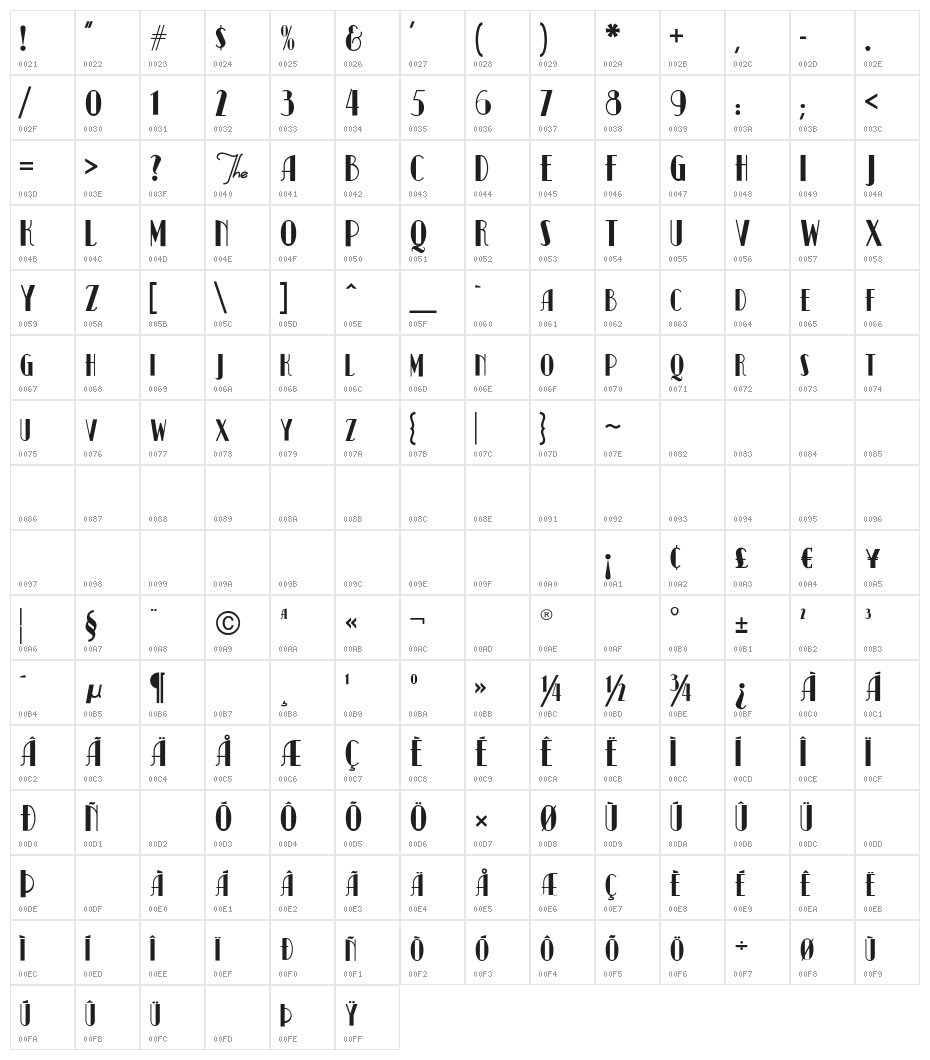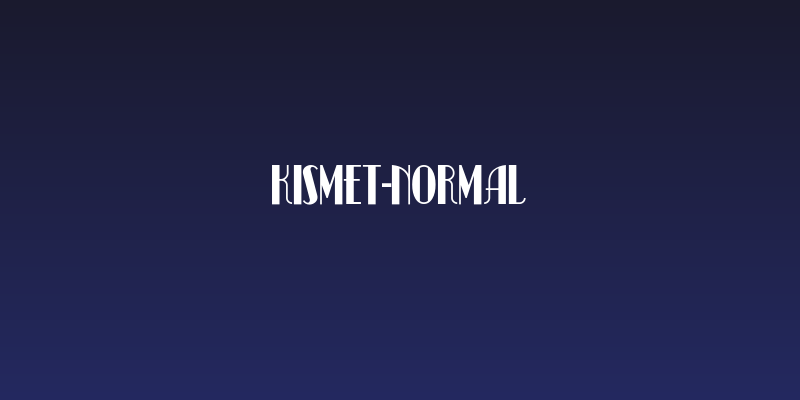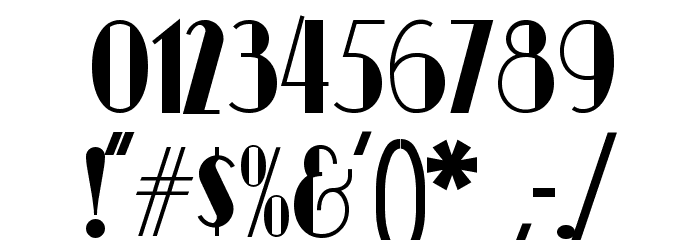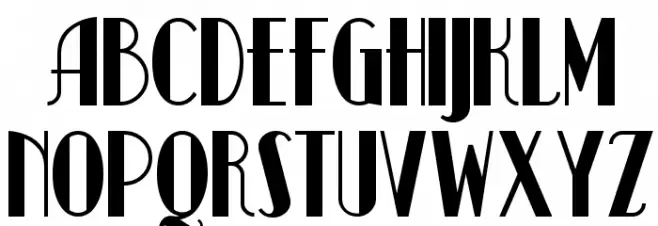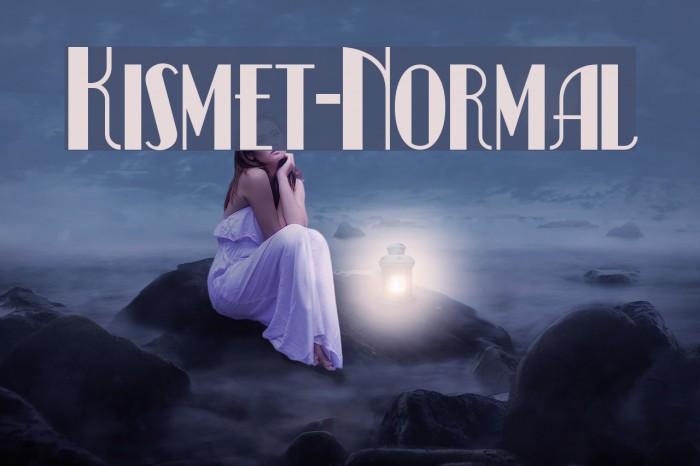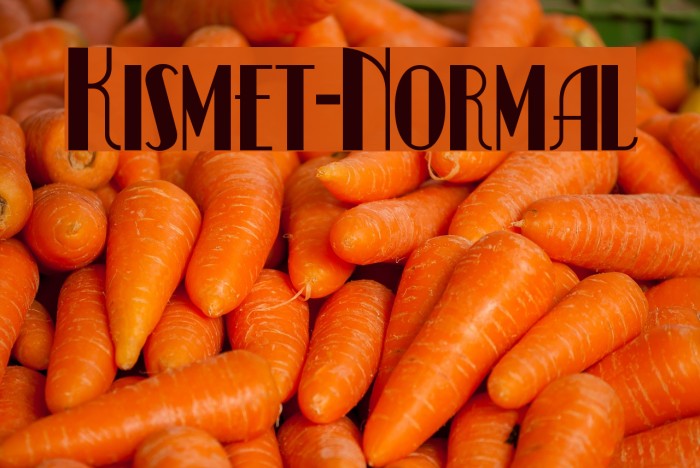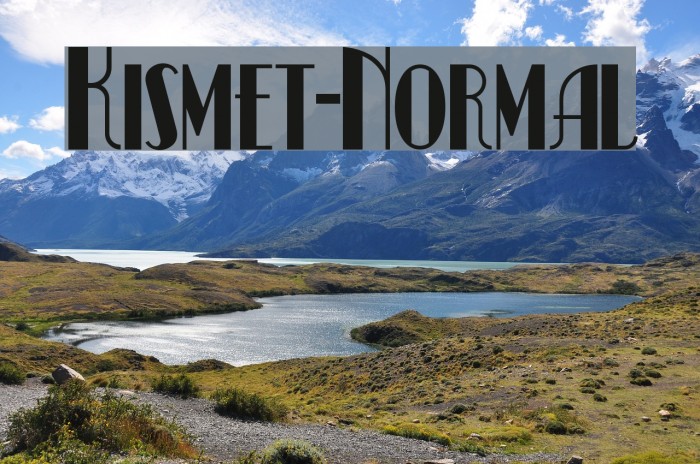
Kismet-Normal Font
✎ Decorative
| Категория | Decorative |
| Общий стиль | Modern, Vintage |
| Рекомендуемые проекты | This font is perfect for branding projects, poster designs, and any creative work that requires a bold statement. It can also be used in editorial design for headlines and titles. |